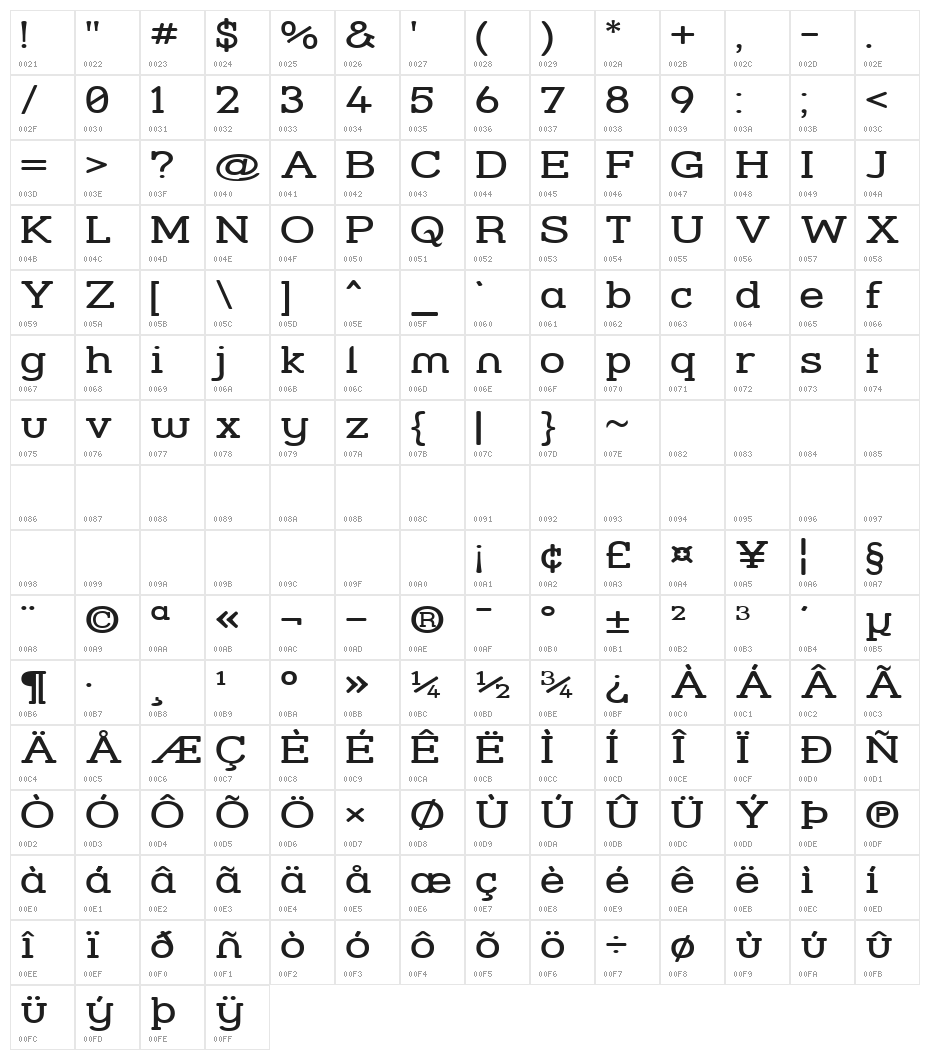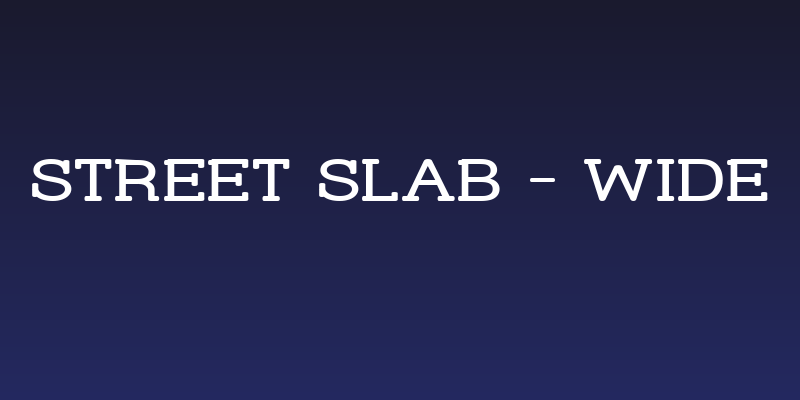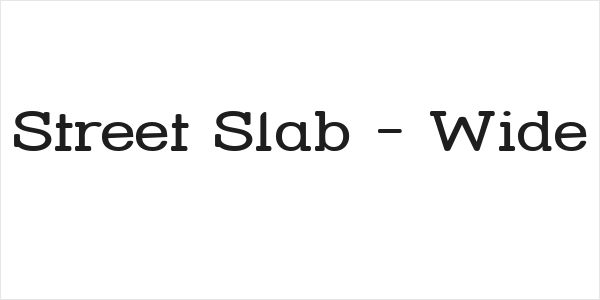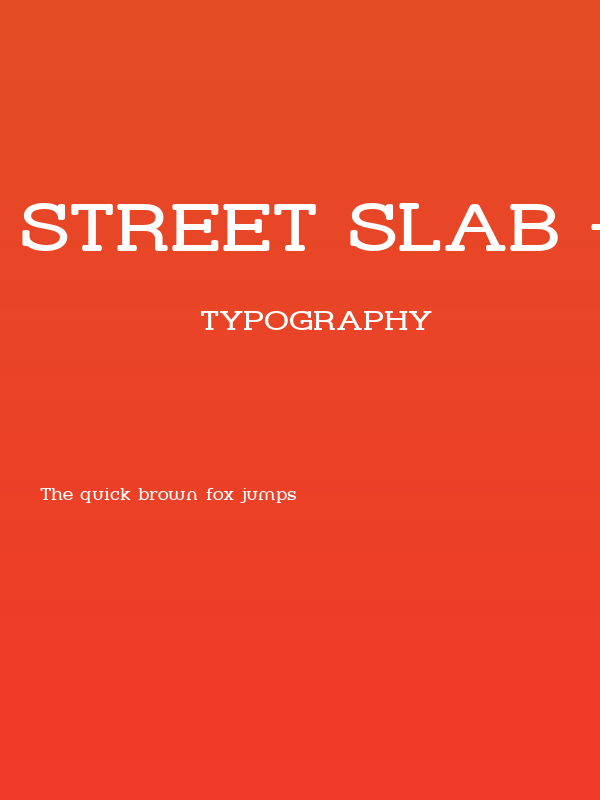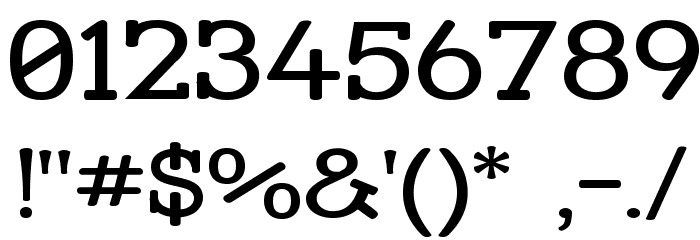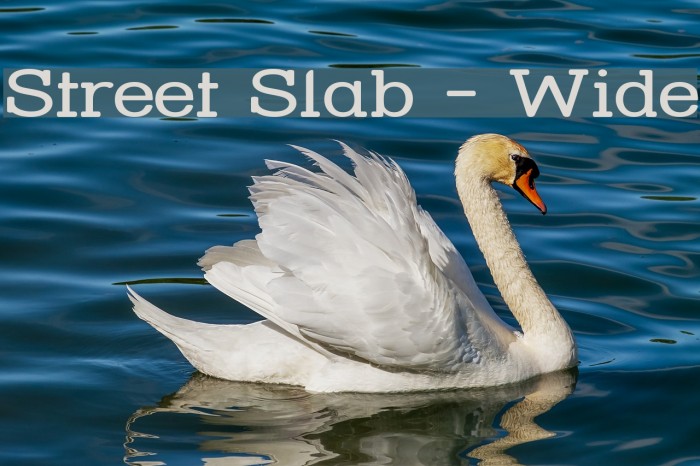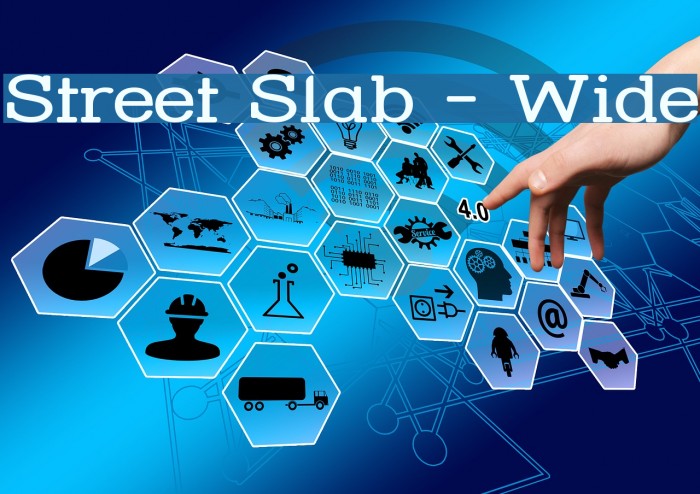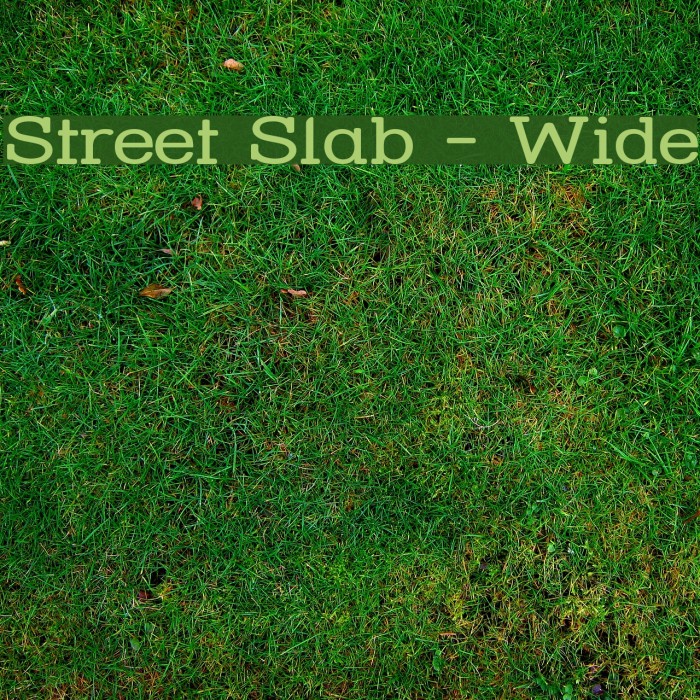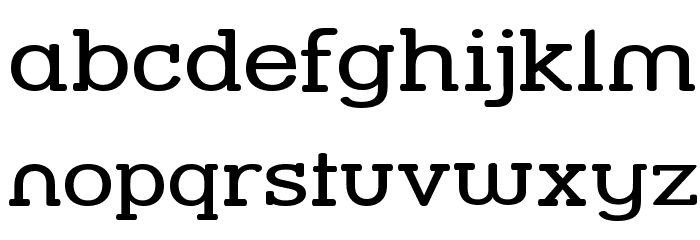
Street Slab - Wide Font
Street Slab - Wide Description
This font features a robust and bold slab serif style, characterized by thick, block-like serifs that give it a strong and authoritative presence. The letters are wide and evenly spaced, providing excellent readability and a commanding visual impact. The uppercase and lowercase characters maintain a consistent weight, contributing to a harmonious and balanced appearance. The numerals are clear and distinct, with a similar boldness that ensures they stand out. Special characters are well-integrated, matching the overall aesthetic of the font. This typeface is ideal for making a bold statement, whether in print or digital media.
Fonts by Apostrophic Lab
| Proposed Projects | Ideal for headlines, posters, branding materials, and any design requiring a strong, impactful typeface. |